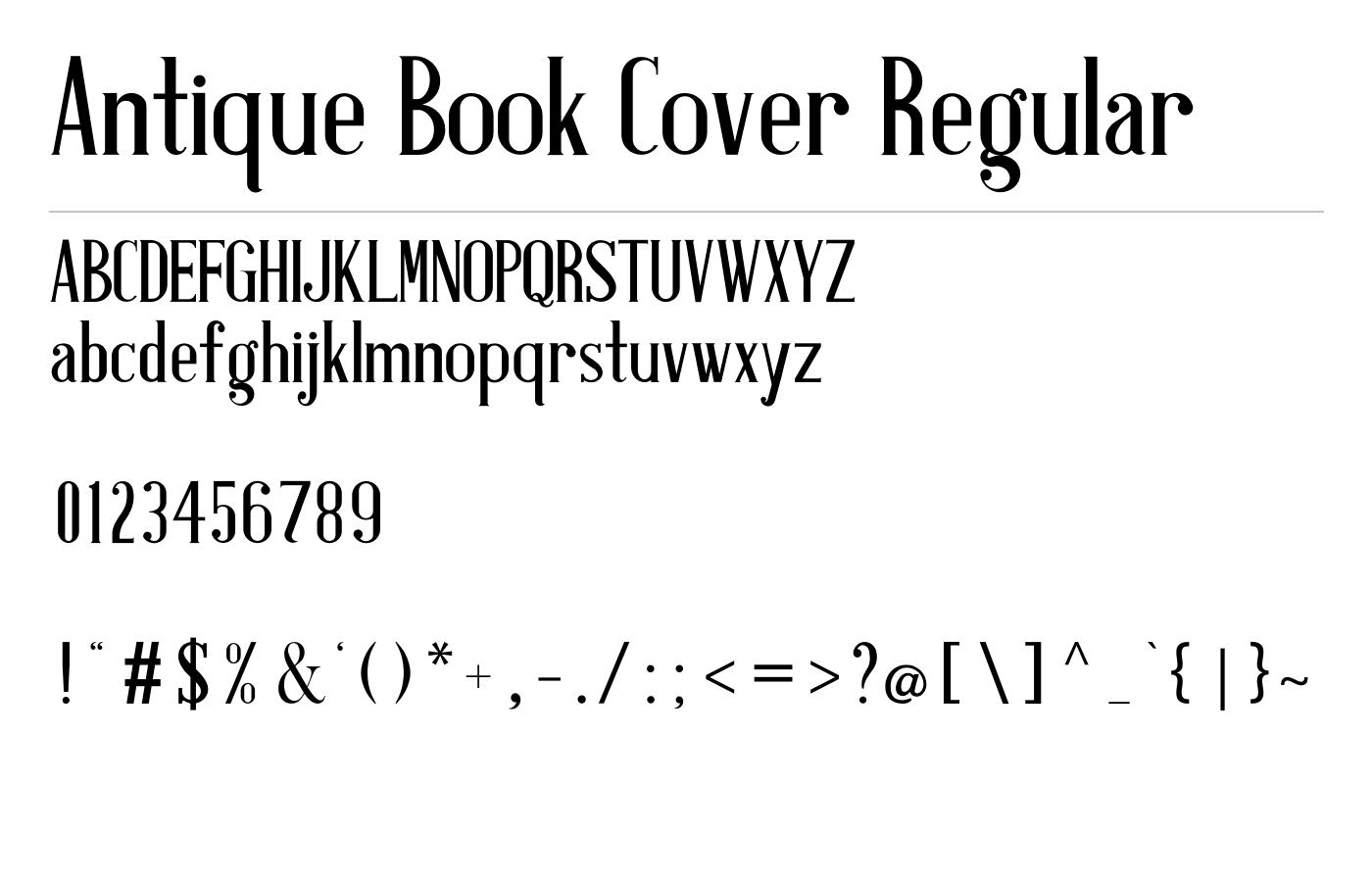
Antique Book Cover is a narrow serif font with a vintage, decorative flair, featuring tall, elegant letterforms and subtle contrast between thick and thin strokes. Its unique details, like the double-story 'g' and distinctive serifs, give it a refined yet antique feel, making it perfect for book covers, logos, and headlines that seek a classic, sophisticated look. This font works well in contexts where an old-fashioned charm combined with readability is desired.
Antique Book Cover Font
About Antique Book Cover Font